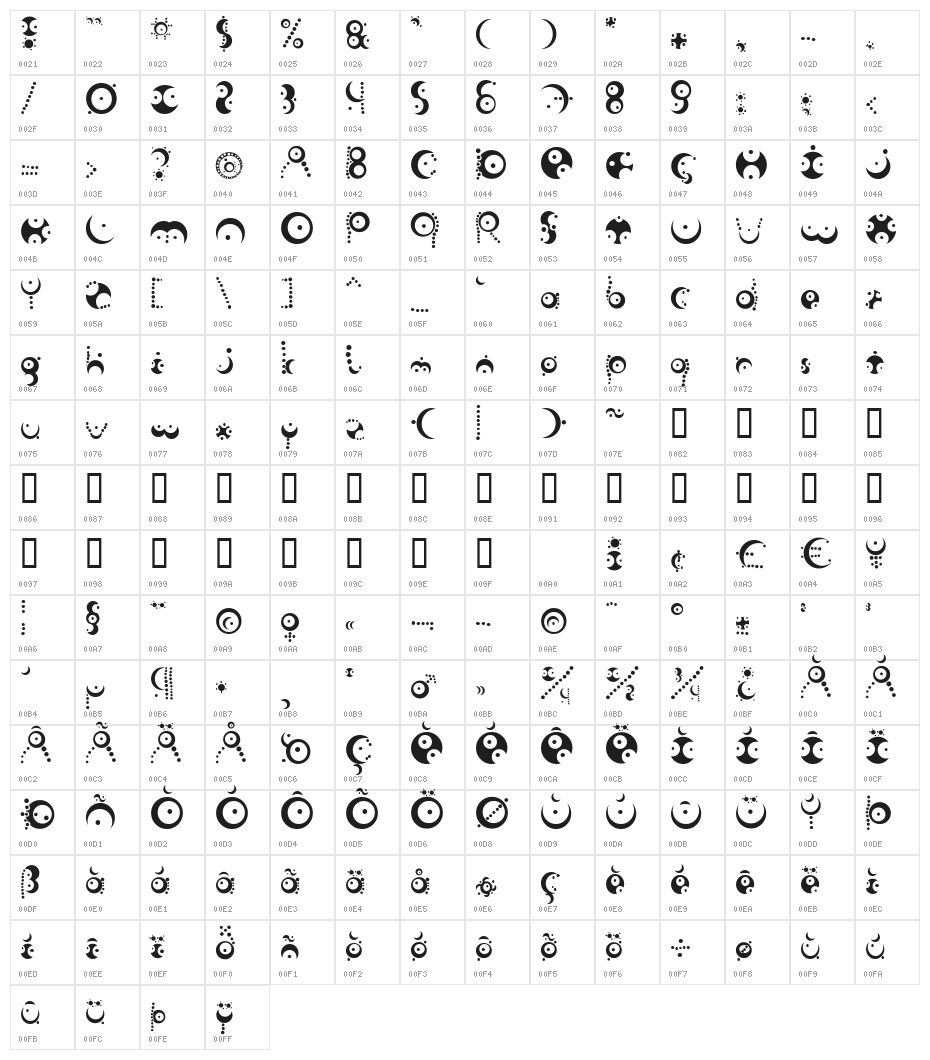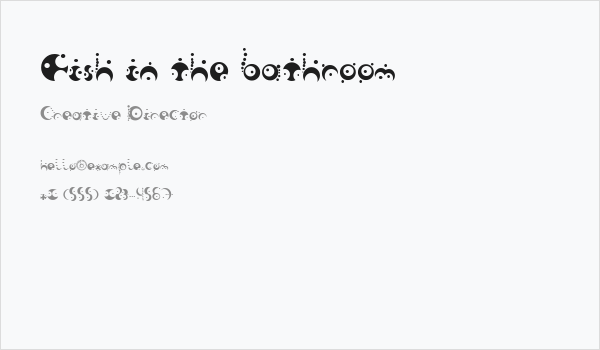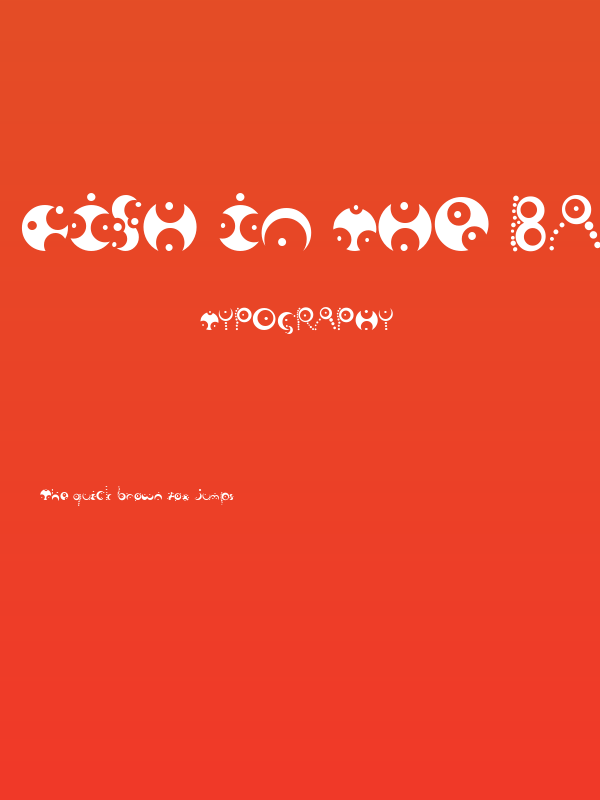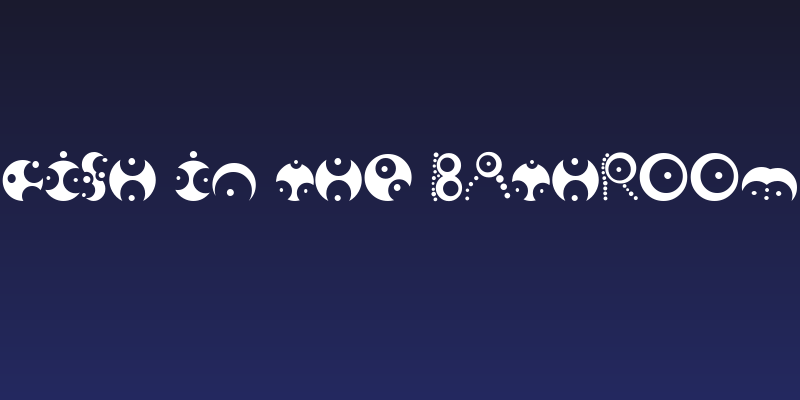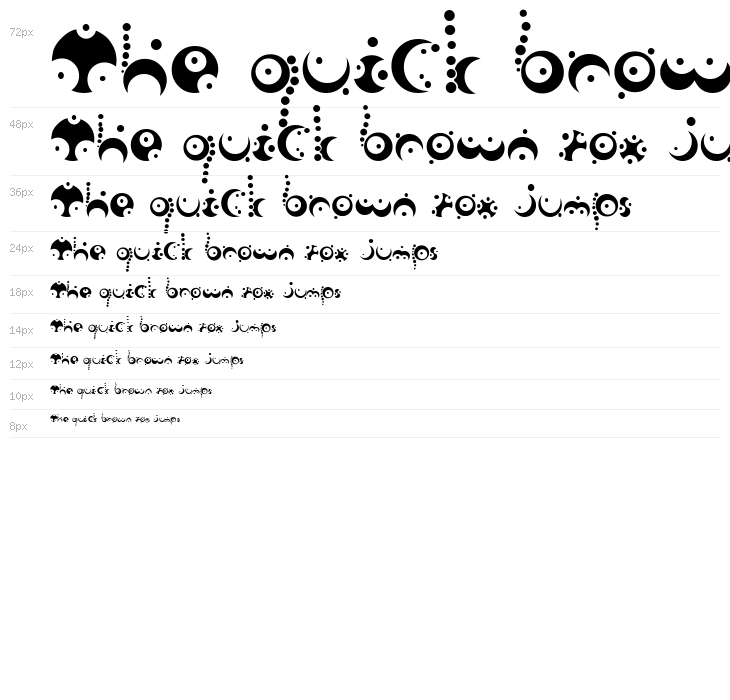
Fish in the bathroom Font
Fish in the bathroom Description
This font features a highly decorative and playful design, characterized by its use of circular shapes and dots that create a whimsical and abstract appearance. Each character is uniquely crafted with a combination of solid and hollow circles, giving it a dynamic and eye-catching look. The font's design is reminiscent of abstract art, with a modern twist that makes it stand out. Its intricate details and bold shapes make it suitable for creative and artistic projects where a distinctive and unconventional style is desired.
| Proposed Projects | Ideal for artistic projects, creative branding, children's books, and playful graphic designs. |